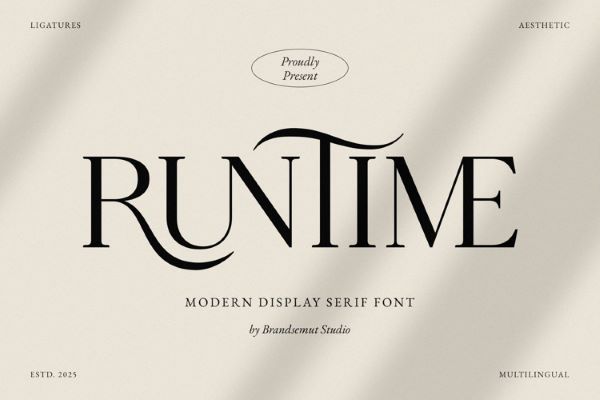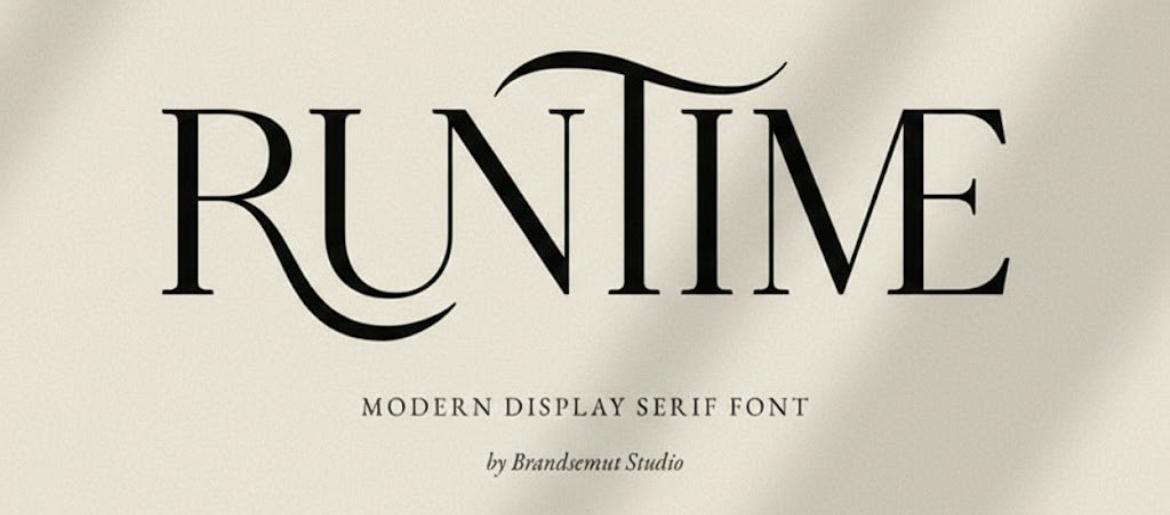
Runtime Font
Runtime Font is a modern display serif typeface combining classic elegance with contemporary structure. Its sharp details and refined contrast make it ideal for headlines, posters, logos, editorials, and branding projects that require a bold yet sophisticated visual presence.